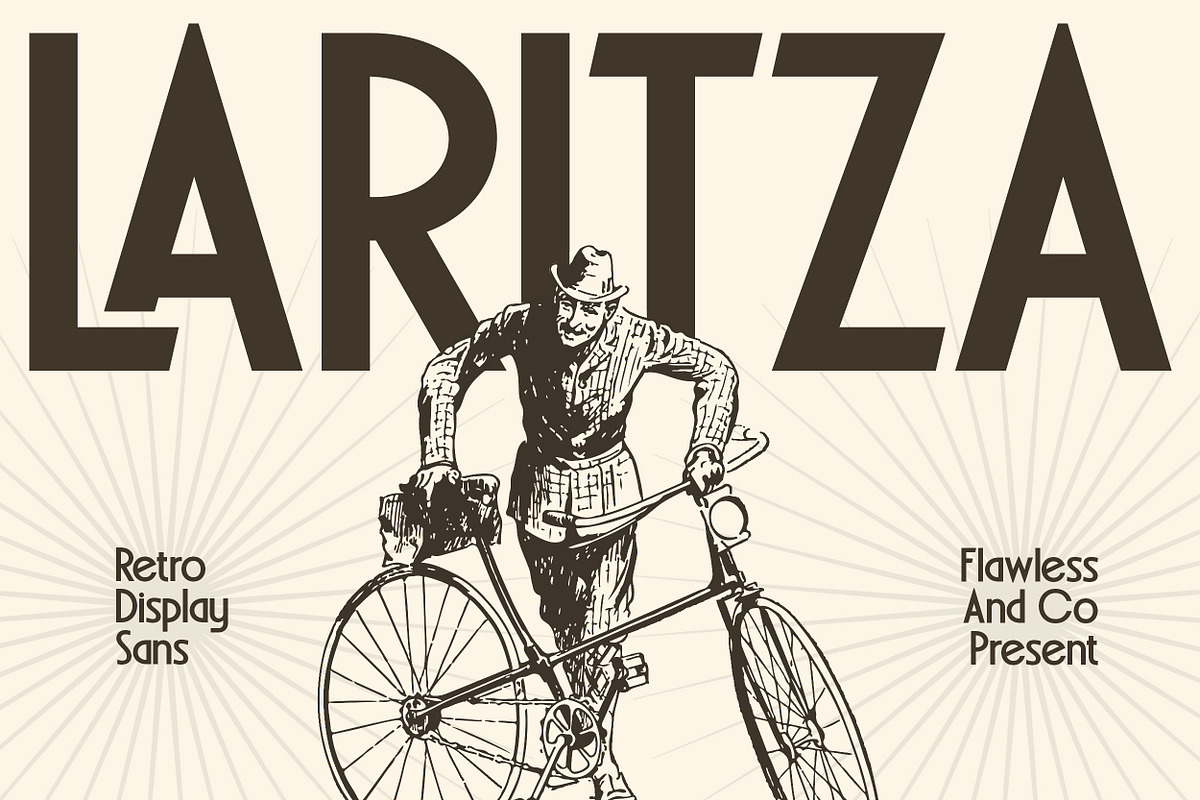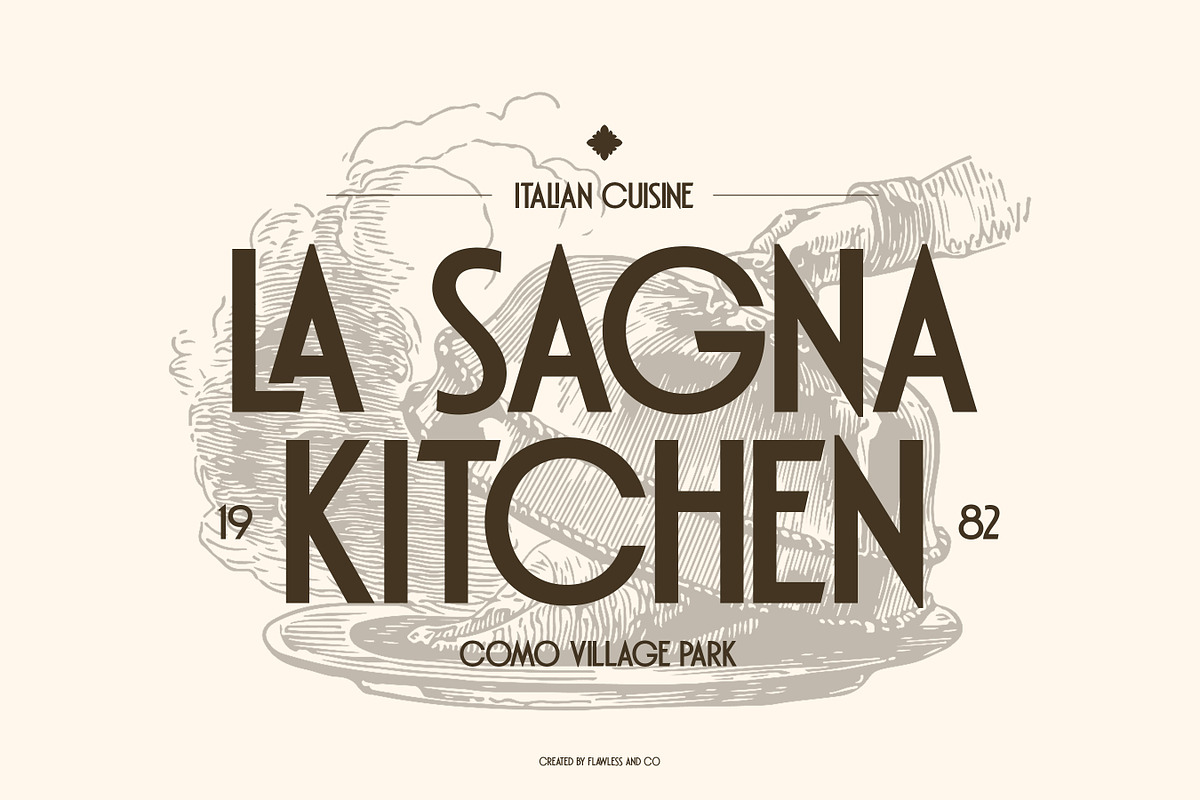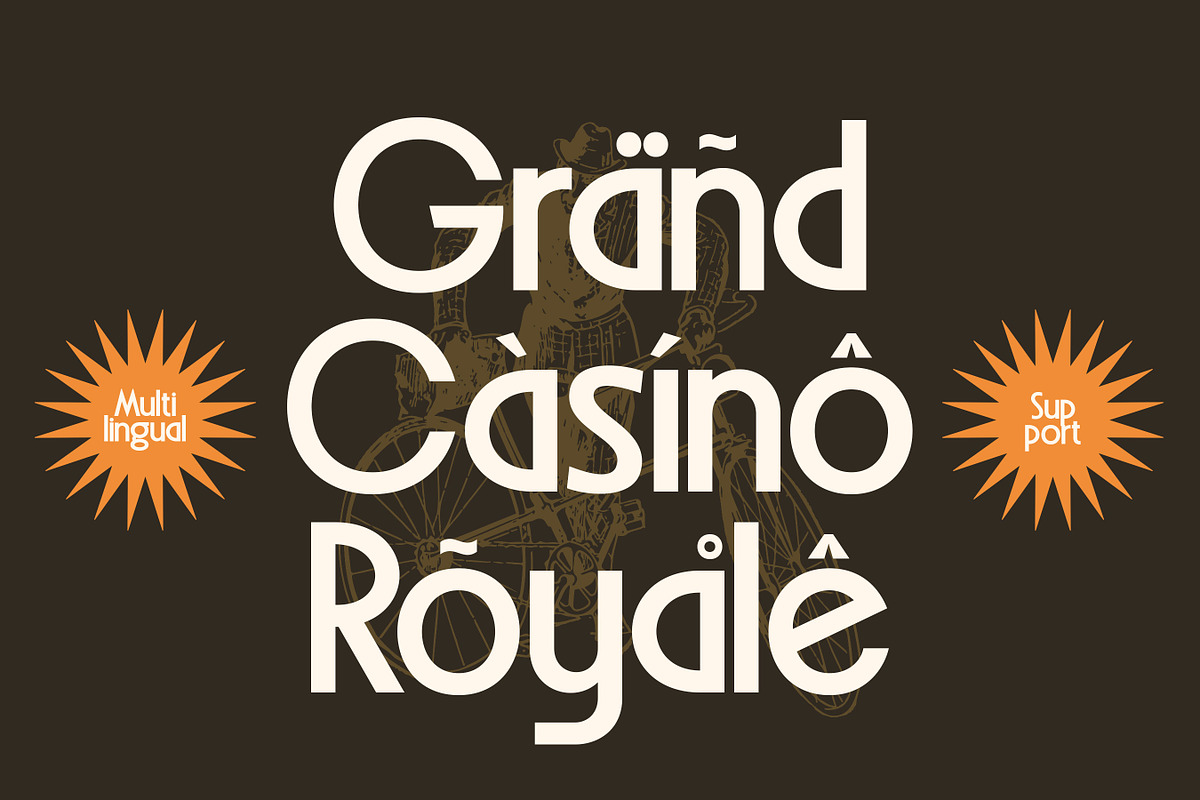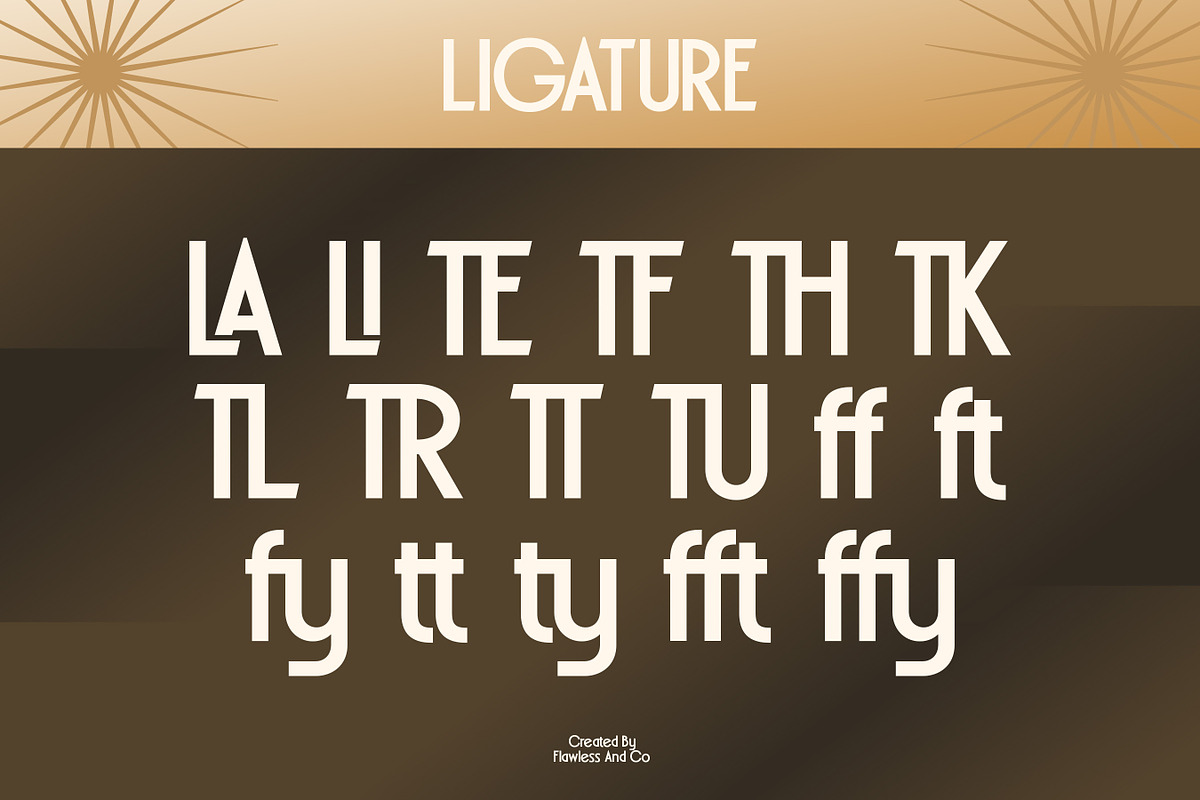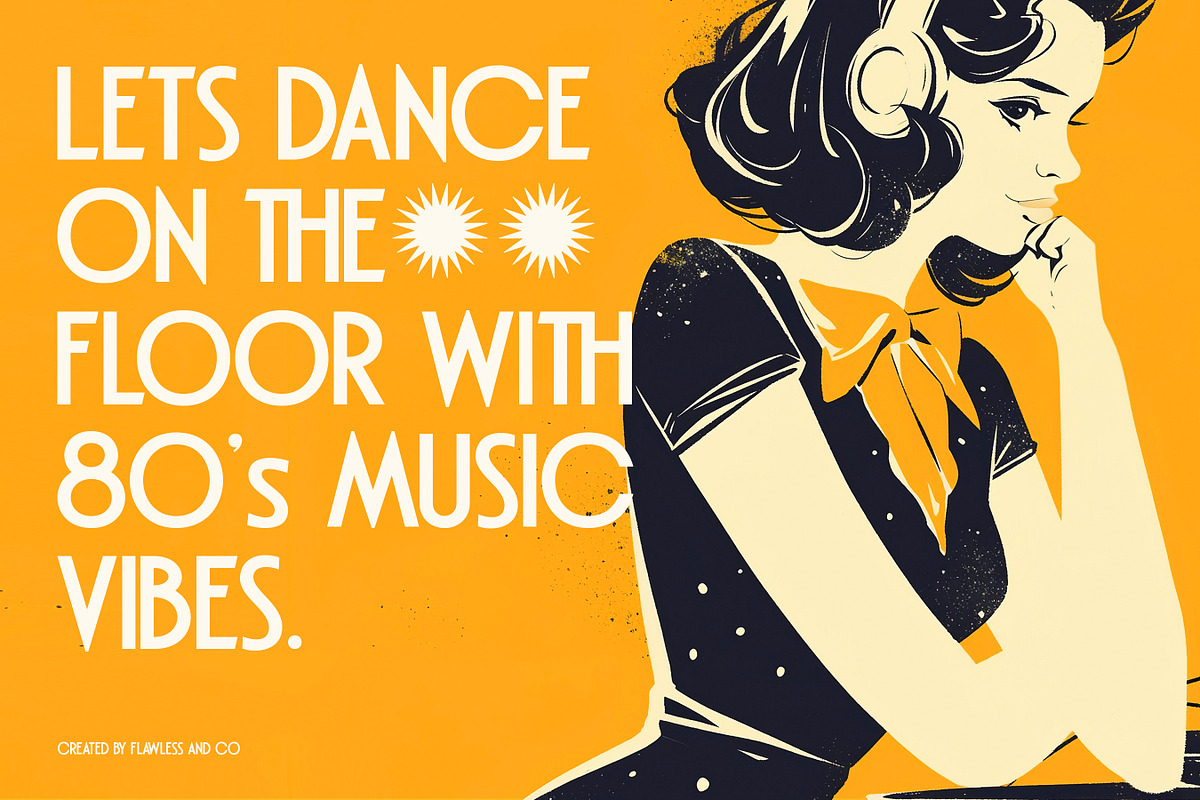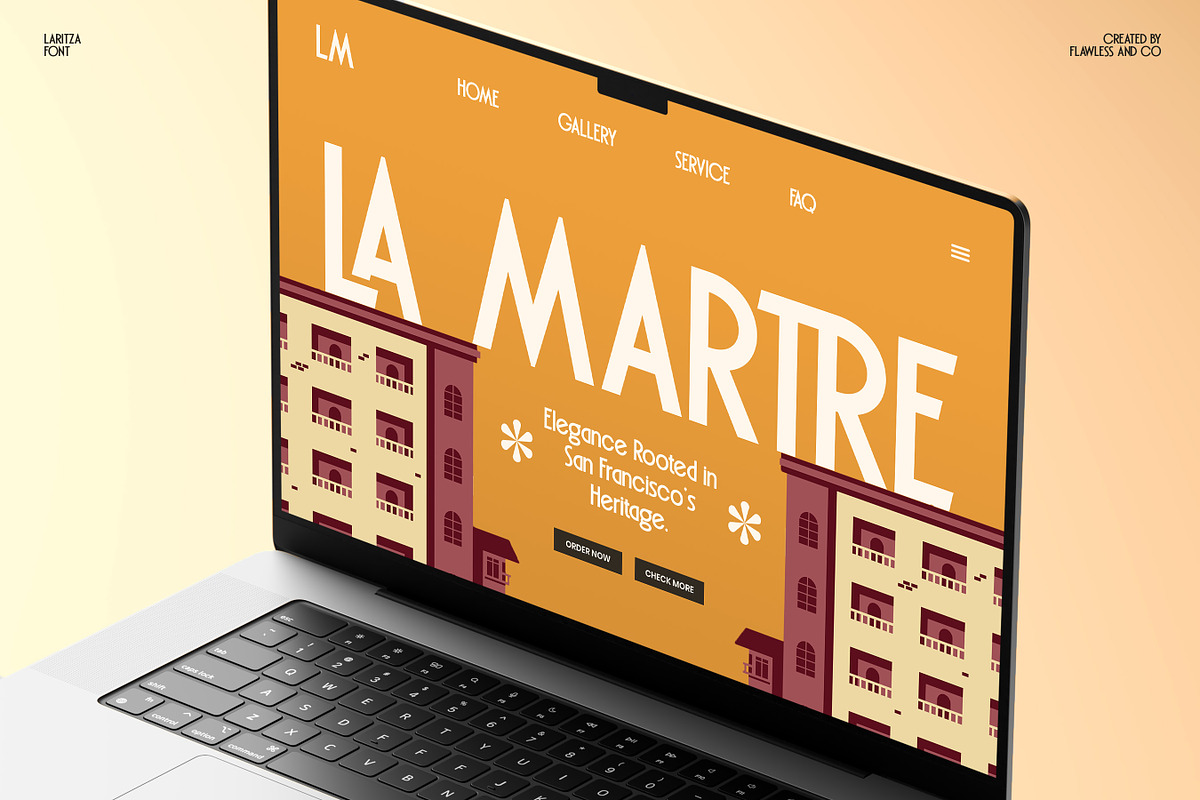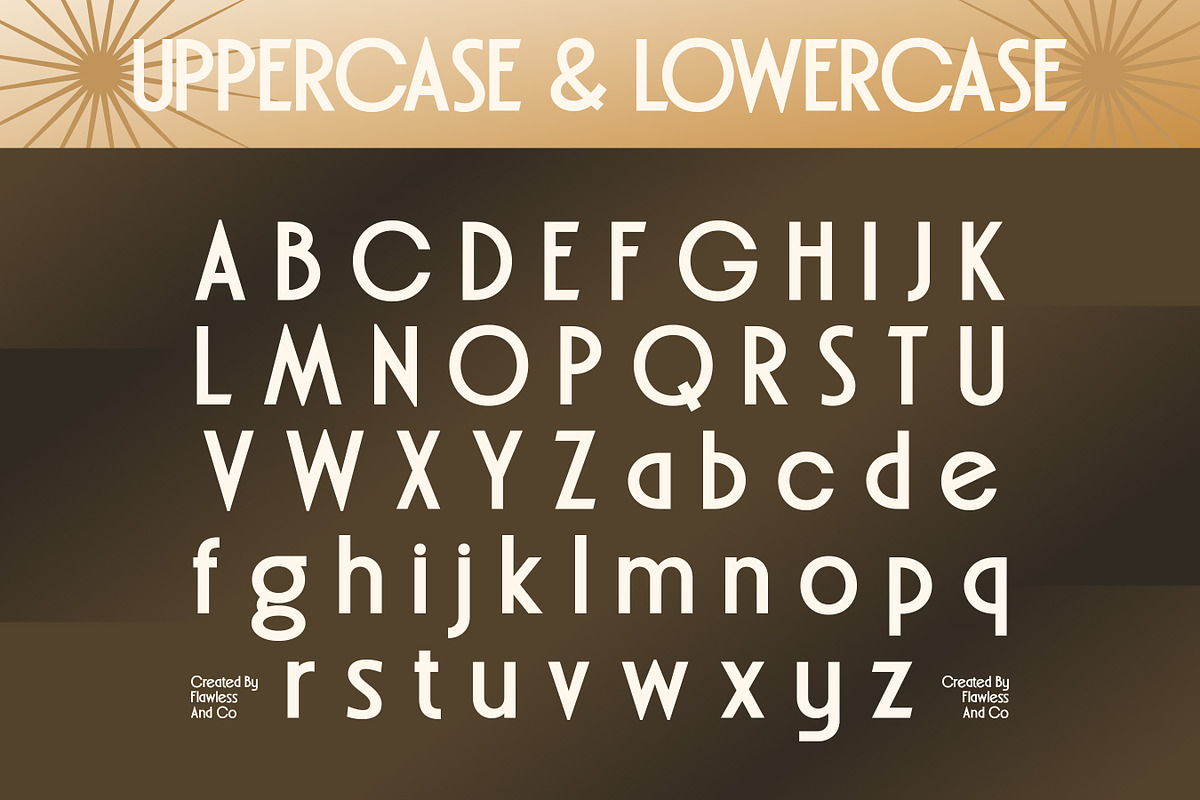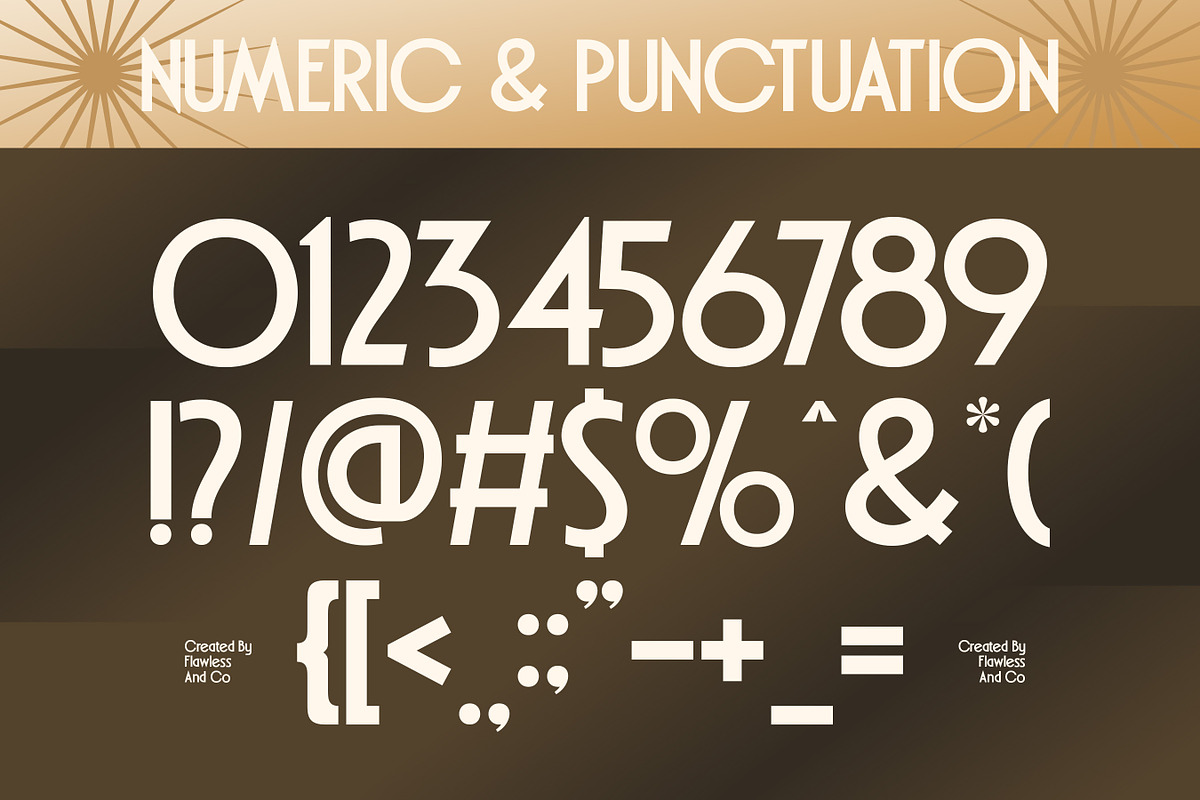
Laritza - Retro Display Font
Laritza - Retro Display Sans Font
Laritza is a bold retro display sans font inspired by classic vintage typography and timeless poster aesthetics. With strong letterforms and clean geometric shapes, Laritza delivers a confident and nostalgic look while remaining modern and highly readable.
Who Should Use Laritza?
Laritza is ideal for brand and logo designers, creative studios, and visual creators who want to bring a strong retro vibe into their work. This font works especially well for designers creating bold logos, vintage-inspired branding, eye-catching posters, headlines, packaging, and promotional materials that need a classic yet powerful look.
A Must-Have Font for Brand and Logo Creators and Designers
Laritza helps create memorable logos and branding with a bold retro feel. Its clean sans structure makes it versatile and easy to apply across various design needs.
Suitable For
- Logo design
- Branding & visual identity
- Posters & headlines
- Packaging design
- Apparel & merchandise
- Editorial and advertising designs